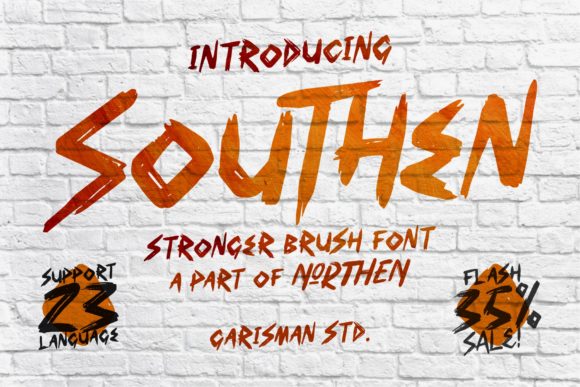
Behold the Southen Font: A Stroke of Brilliance for Your Creative Endeavors!
In a world saturated with monotonous and predictable fonts, the Southen Font emerges as a beacon of originality and inspiration. This remarkable display font, crafted by the ingenious minds at Garisman Studio, is a symphony of captivating curves and a breath of fresh urban air. Its alluring presence guarantees to elevate your designs, transforming them into visual masterpieces that command attention and ignite imaginations.
Immerse yourself in the world of Southen Font and discover a font that dances and plays with your words, adding an irresistible charm to your logo designs, brand imagery, and social media posts. Its versatility extends beyond digital realms, making it an ideal choice for product packaging, merchandise, and handwritten quotes that yearn for a touch of elegance.
Whether you're a seasoned designer seeking to elevate your creative projects or an aspiring artist yearning to make a statement, the Southen Font is your perfect companion. Its effortless charm and captivating aura will effortlessly elevate your designs, leaving an unforgettable impression on your audience.
Embark on a creative journey with the Southen Font and unlock a world of possibilities. Let your imagination soar as you witness the transformation of your designs into captivating works of art. Experience the joy of creating with a font that matches your passion and ignites your creativity.